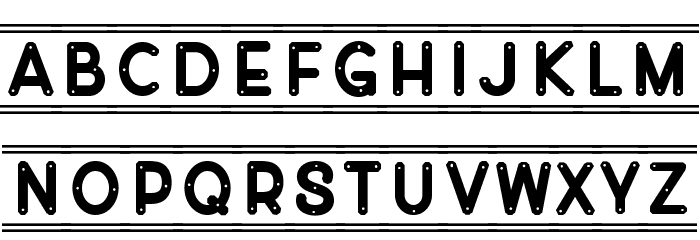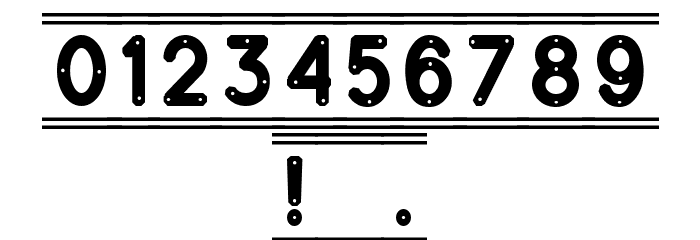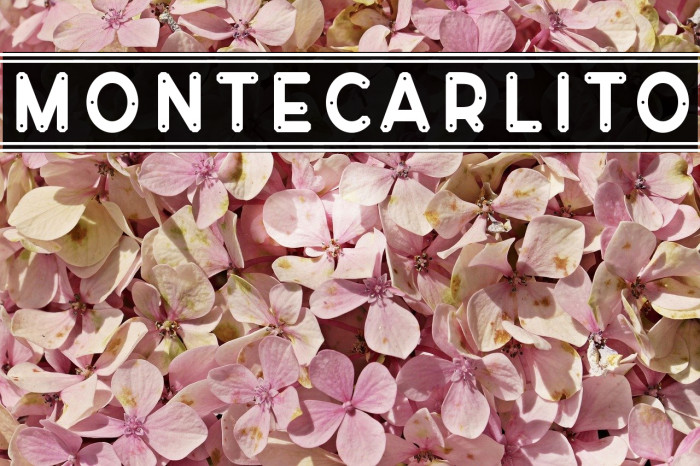
Montecarlito Font
This font features a bold, geometric design with a distinct industrial feel. Each character is constructed with uniform stroke widths, creating a sense of balance and stability. The rounded edges and circular cutouts within the letters add a unique, playful touch, making it stand out in any design. The uppercase letters are consistent in height, while the numerals maintain a similar weight and style, ensuring a cohesive look across all characters. The special characters, such as the exclamation mark and period, follow the same design principles, contributing to the overall harmony of the font.
A bold, geometric font with industrial and playful elements.
- Proposed Projects: Ideal for branding, signage, posters, and any project requiring a strong, modern aesthetic.